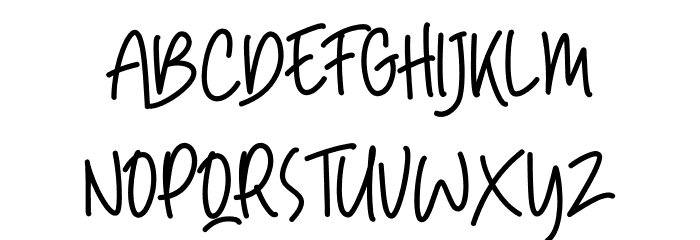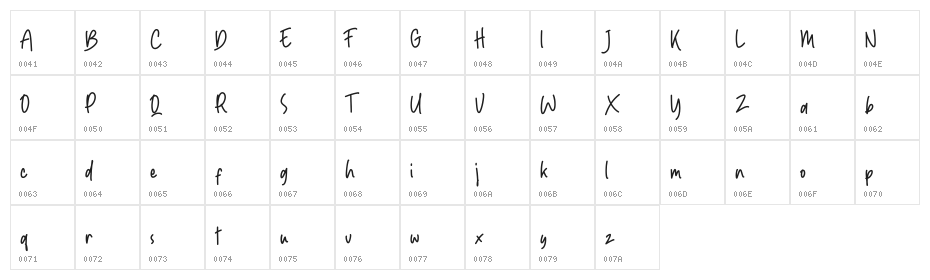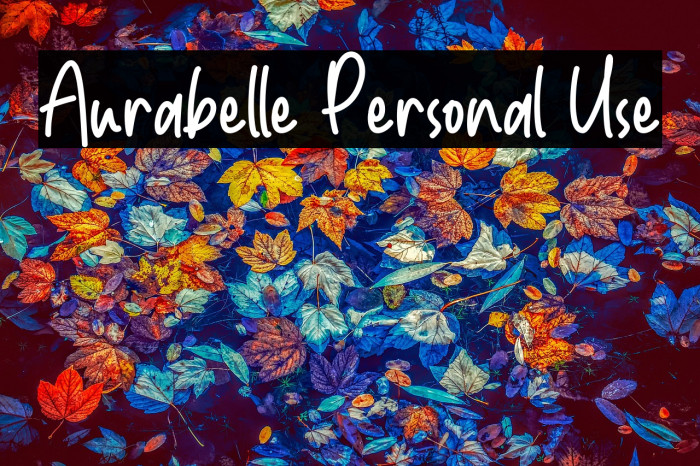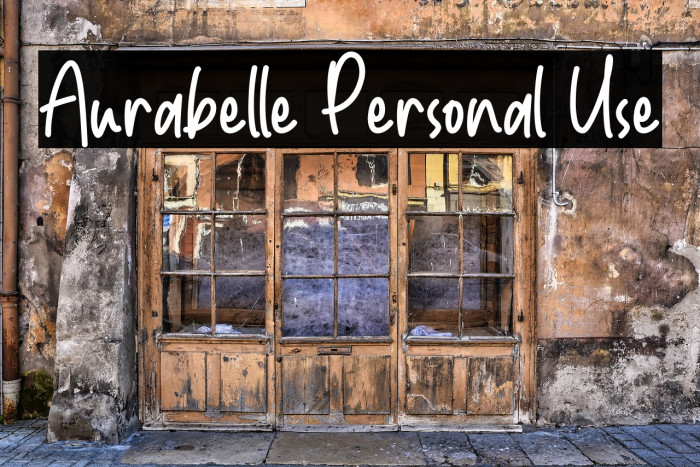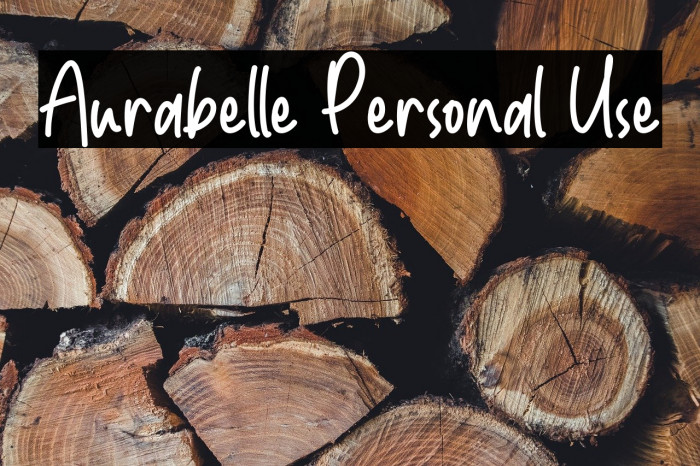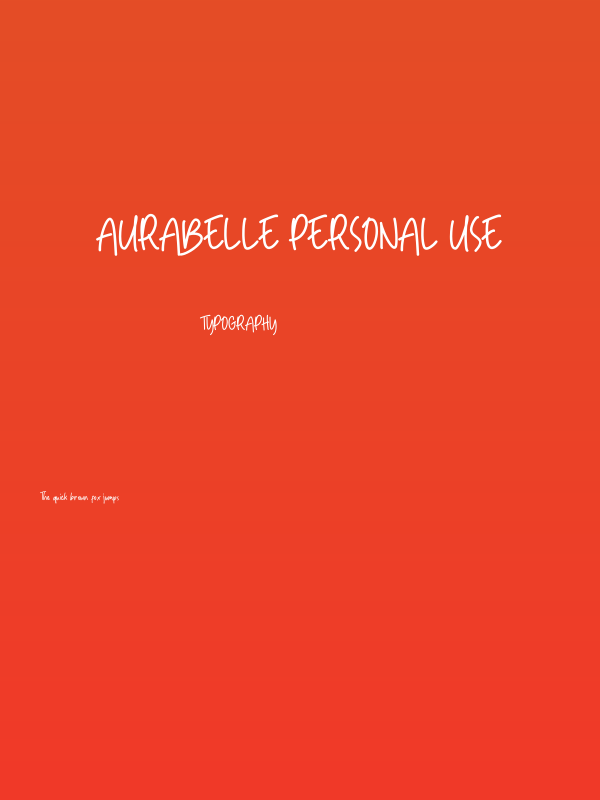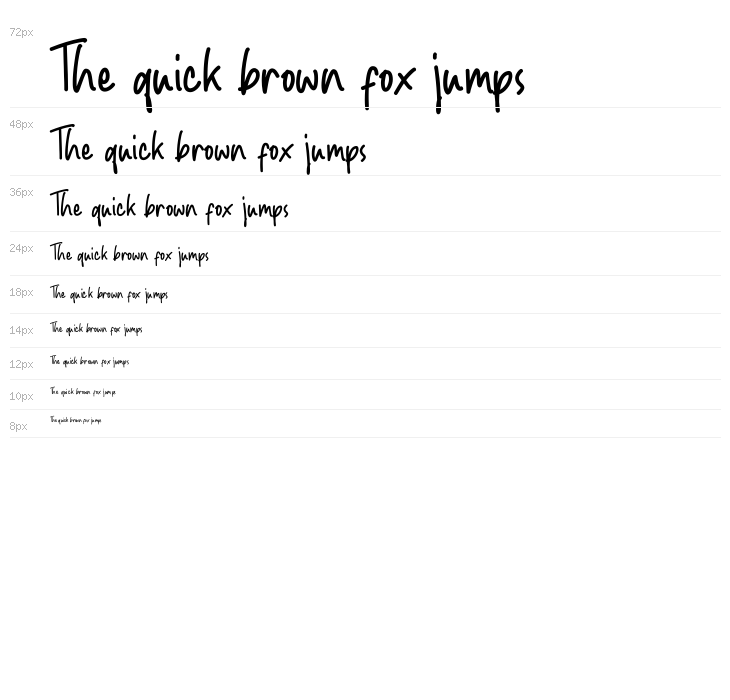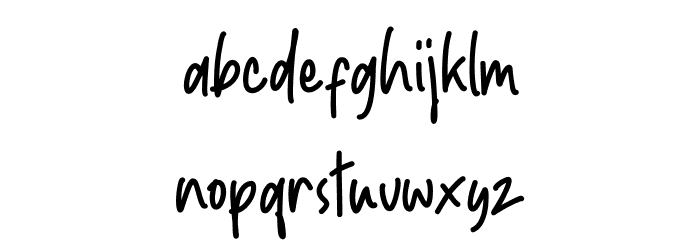
Aurabelle Personal Use Font
Aurabelle Personal Use Description
This font features a playful and casual handwritten style, characterized by its fluid and dynamic strokes. The letters are slightly slanted, giving it an informal and friendly appearance. The uppercase and lowercase letters maintain a consistent style, with rounded edges and a natural flow that mimics real handwriting. The font includes a full set of uppercase and lowercase letters, numbers, and a selection of special characters, making it versatile for various design needs. Its organic and approachable look makes it suitable for projects that require a personal touch.
| Proposed Projects | Ideal for greeting cards, personal branding, social media graphics, and informal invitations. |